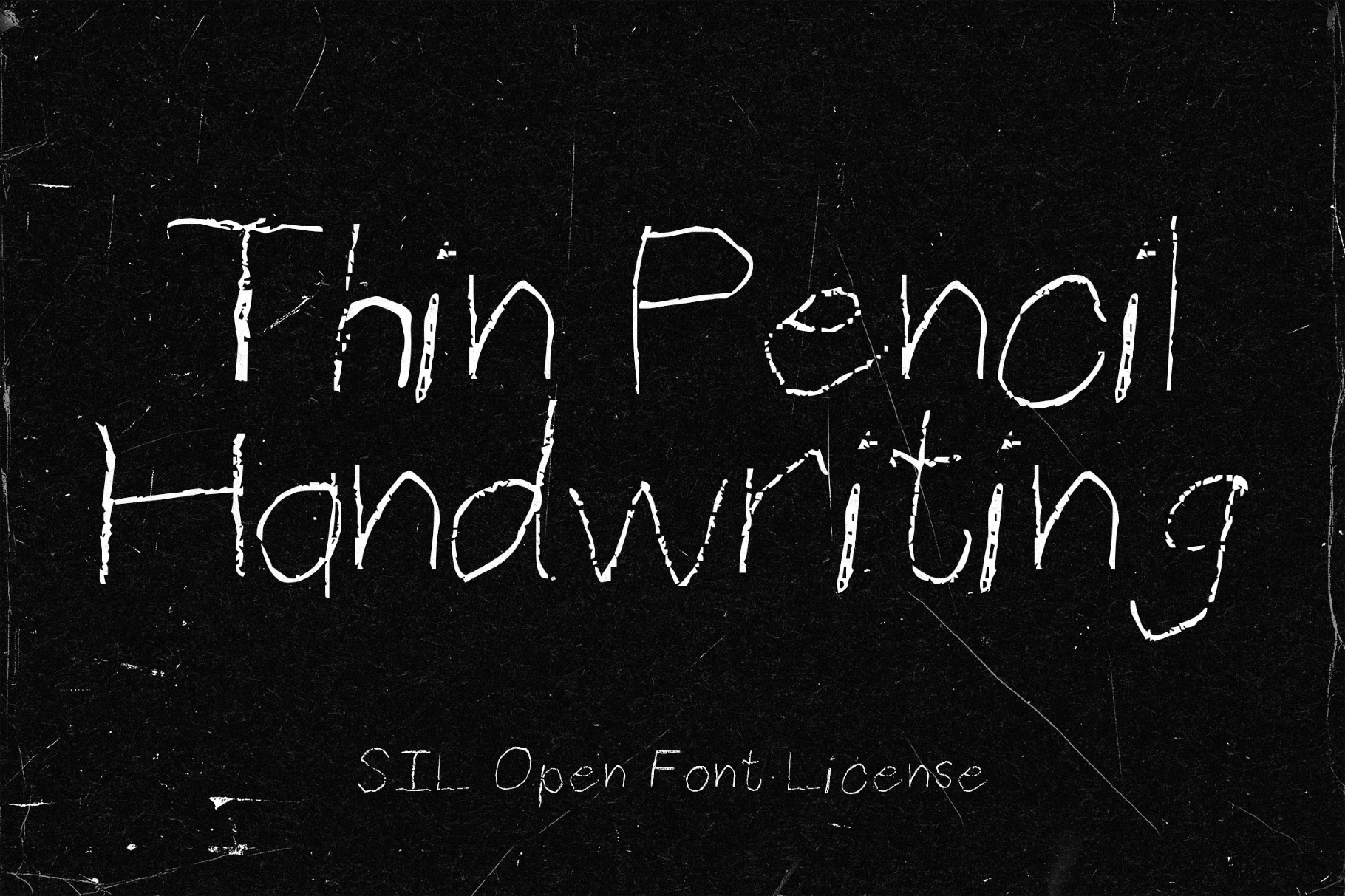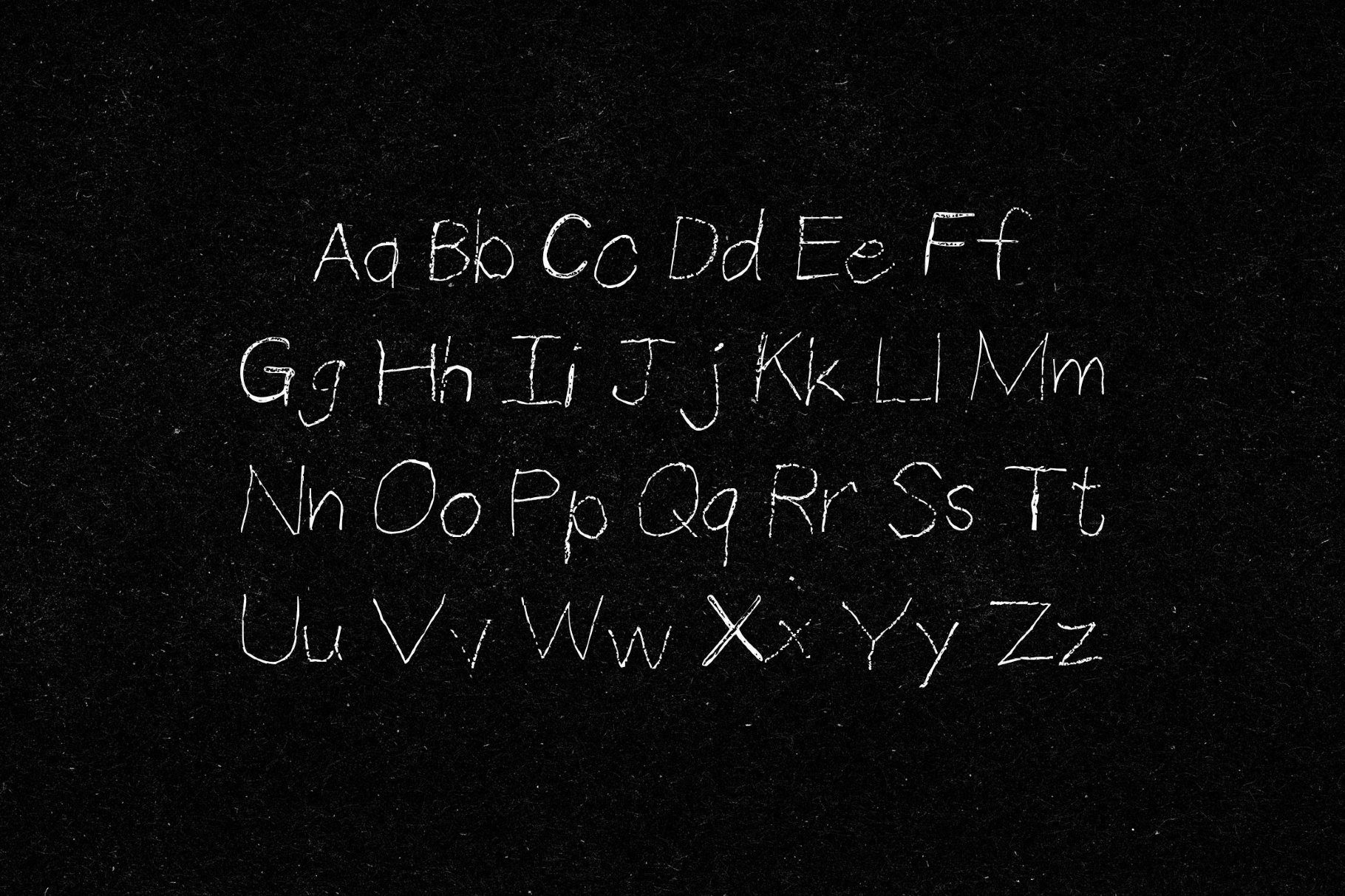
Thin Pencil Handwriting Font
Thin Pencil Handwriting
Thin Pencil font has the look of quick pencil notes, with thin strokes and slightly irregular lines. It works well in soft visual contexts — notes, journaling layouts, invitations, branding, social media graphics, and editorial projects.